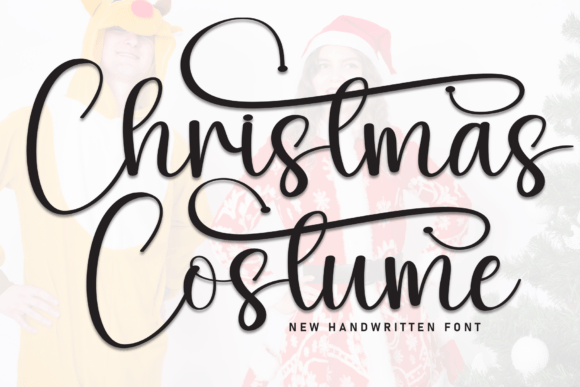
Deck the Halls with Elegant Typography
It’s the most wonderful time of the year – when creativity knows no bounds and imagination runs wild. As designers, we’re often tasked with bringing joy and magic to our projects, and what better way to do that than with a dash of festive flair? I still remember the excitement of designing holiday cards for my family when I was a kid – carefully selecting the perfect font, colors, and graphics to capture the essence of the season.
Fast forward to the present, and I’m thrilled to introduce you to the Christmas Costume Font – a stunning script font that’s perfect for elevating your designs and adding a touch of sophistication to any project. Whether you’re crafting wedding invitations, logos, or social media graphics, this elegant font is sure to make your creations stand out from the crowd.
Christmas Costume Font Key Features
- Unique Characteristics: The font features a playful, festive design with a mix of bold and cursive elements, perfect for adding a touch of Christmas magic to designs.
- Character Set: The font includes a wide range of characters, including uppercase and lowercase letters, numbers, punctuation marks, and special characters, making it suitable for a variety of design applications.
Designer Review: Christmas Costume Font
Overall, I think the Christmas Costume Font is a fun and playful addition to any festive project. Here are some of its strengths: ✨
- It’s perfect for holiday-themed designs, especially those related to costumes or decorations.
- The font is highly customizable, allowing designers to adjust its size, color, and style to suit their project’s needs.
- The font is available in a variety of weights and styles, making it easy to find the right look for your design.
- The font may be too over-the-top for more subdued holiday designs.
- It’s not suitable for formal or professional projects.
Overall, I think the Christmas Costume Font is a great choice for designers looking to add some holiday cheer to their projects. While it may have some limitations, it’s a fun and versatile font that’s sure to put a smile on your audience’s faces.
Tips for Getting the Most Out of the Christmas Costume Font
Use the Christmas Costume Font to add a festive touch to your designs, presentations, and documents.
Experiment with different font sizes, colors, and styles to create a unique look.
Use the font to create custom text for gift tags, holiday cards, and other festive projects.
The Christmas Costume Font is perfect for:
Festive greeting cards and invitations
Gift tags and wrapping paper
Holiday-themed social media posts and graphics
Festive blog posts and articles
Alternatives to Christmas Costume Font for Designers
Great Vibes is a beautiful, cursive script font perfect for adding a touch of elegance to your designs. It works well for wedding invitations, birthday cards, and other festive occasions. Great Vibes is a more versatile font than Christmas Costume Font, as it can be used in a wider range of designs, from formal to casual.
Carolyna Pro is a modern, elegant script font ideal for creating a sophisticated look in your designs. It’s perfect for wedding invitations, branding, and other high-end designs. While it shares a similar elegant feel with Christmas Costume Font, Carolyna Pro is more versatile and can be used in a variety of contexts.